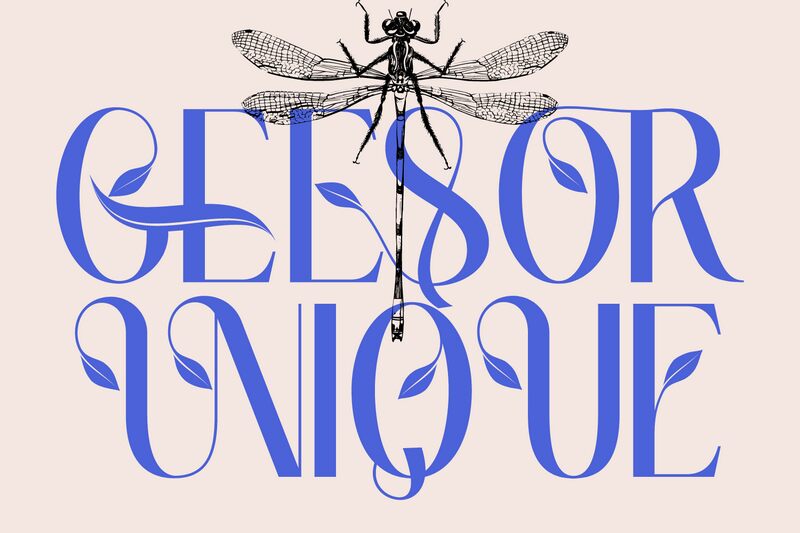
GEESOR UNIQUE DEMO Regular
Geesor Unique font by 177Studio is an elegant display typeface presenting sophisticated ornate letters reminiscent of a royal artistic feel. This free font blends delicate designs with modern attributes in exquisite forms to reach a result that can only be described as breathtaking. Use it with smaller sizes for more simplicity or play around with weights, curves, and layers to present the full beauty offered by this type.